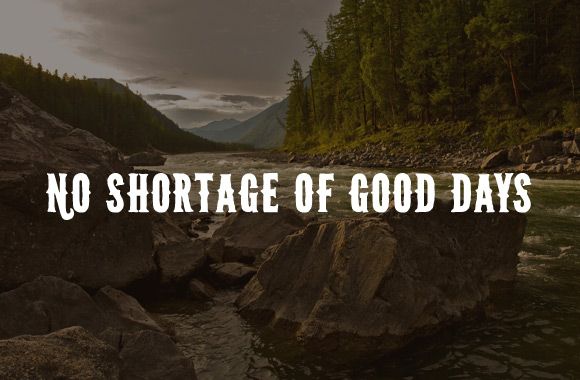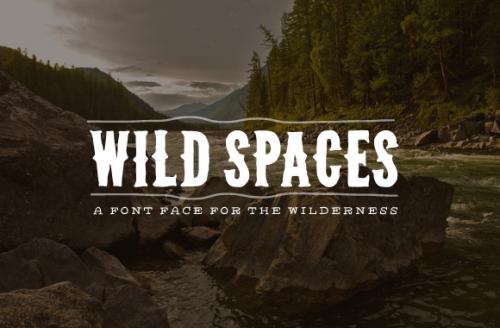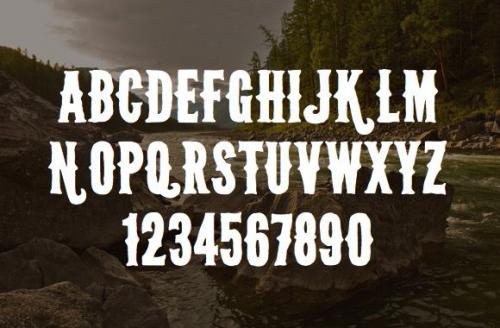
Wild Spaces is a font built for the outdoors. Use it in the cabin by the lake or around the campfire. It’s the perfect font for your next wilderness adventure.